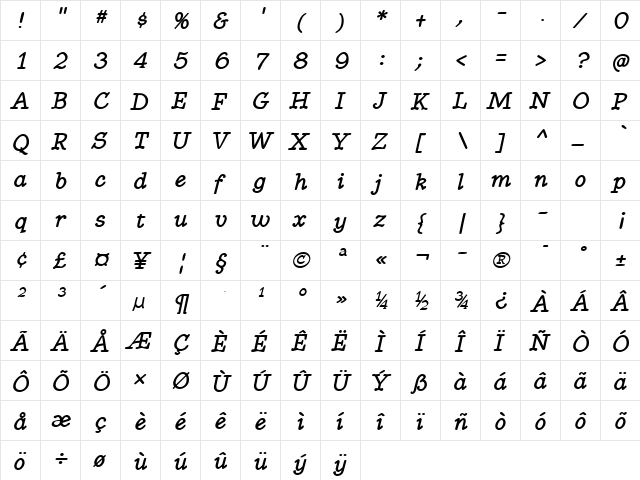
BetterKamp BoldItalic
Design Context for BetterKamp Typeface
BetterKamp offers clean, dependable letterforms without strong stylistic allegiance, making it a practical choice for designers who need flexibility. The dynamic lean of this cut emphasises speed and emphasis in any layout. The heavy weight commands attention and anchors typographic hierarchies.
Pro Tip: Use BetterKamp for emphasis, pull quotes, and subheadings where its slanted energy can add rhythm to the layout.